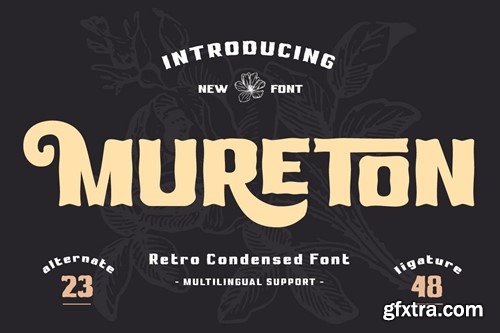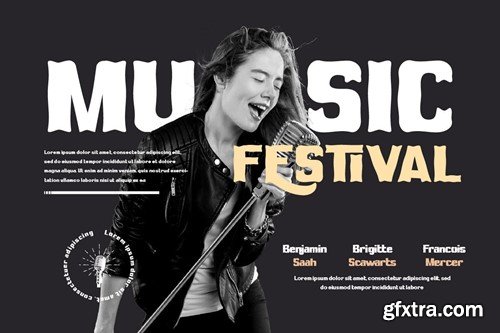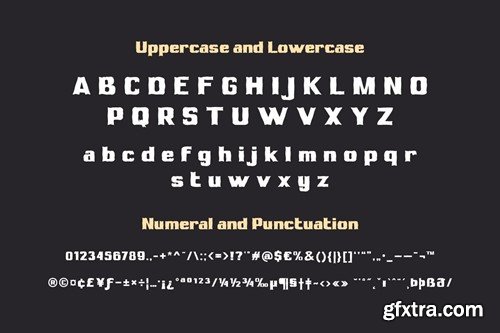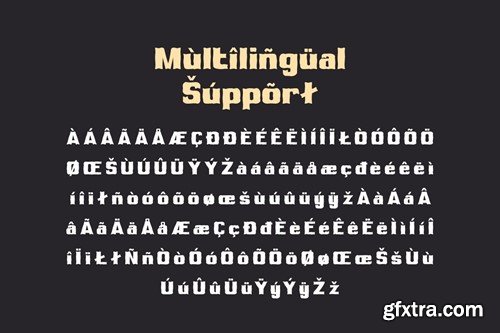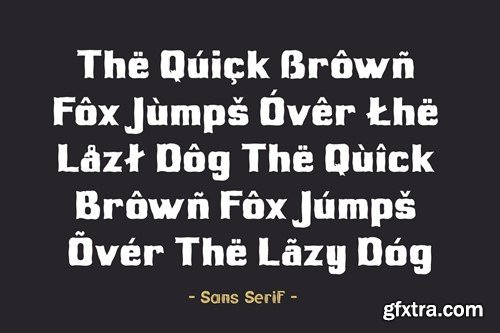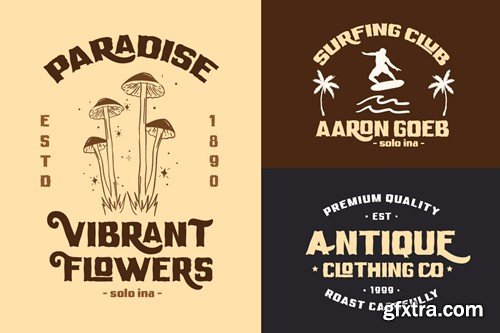
Mureton - Retro Condensed Font Y7J2M2N
Mureton - Retro Condensed Font
Mureton is a retro condensed font that brings the best of the past to the present. Its unique, vintage-inspired characters are perfect for creating standout headlines and logos. Whether you’re working on a retro-themed project or just want to add a touch of nostalgia to your designs, Mureton is the perfect choice. It’s more than just a font, it’s a journey back in time.
• Alternate, Ligature